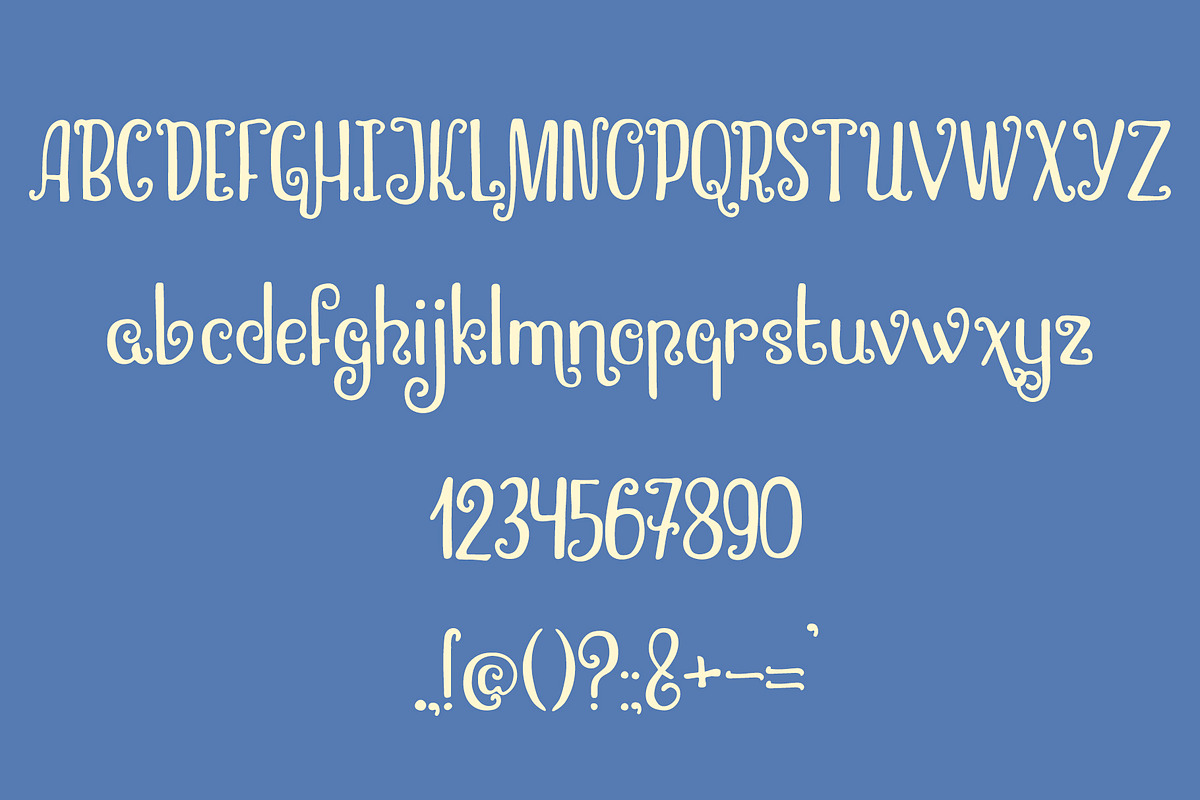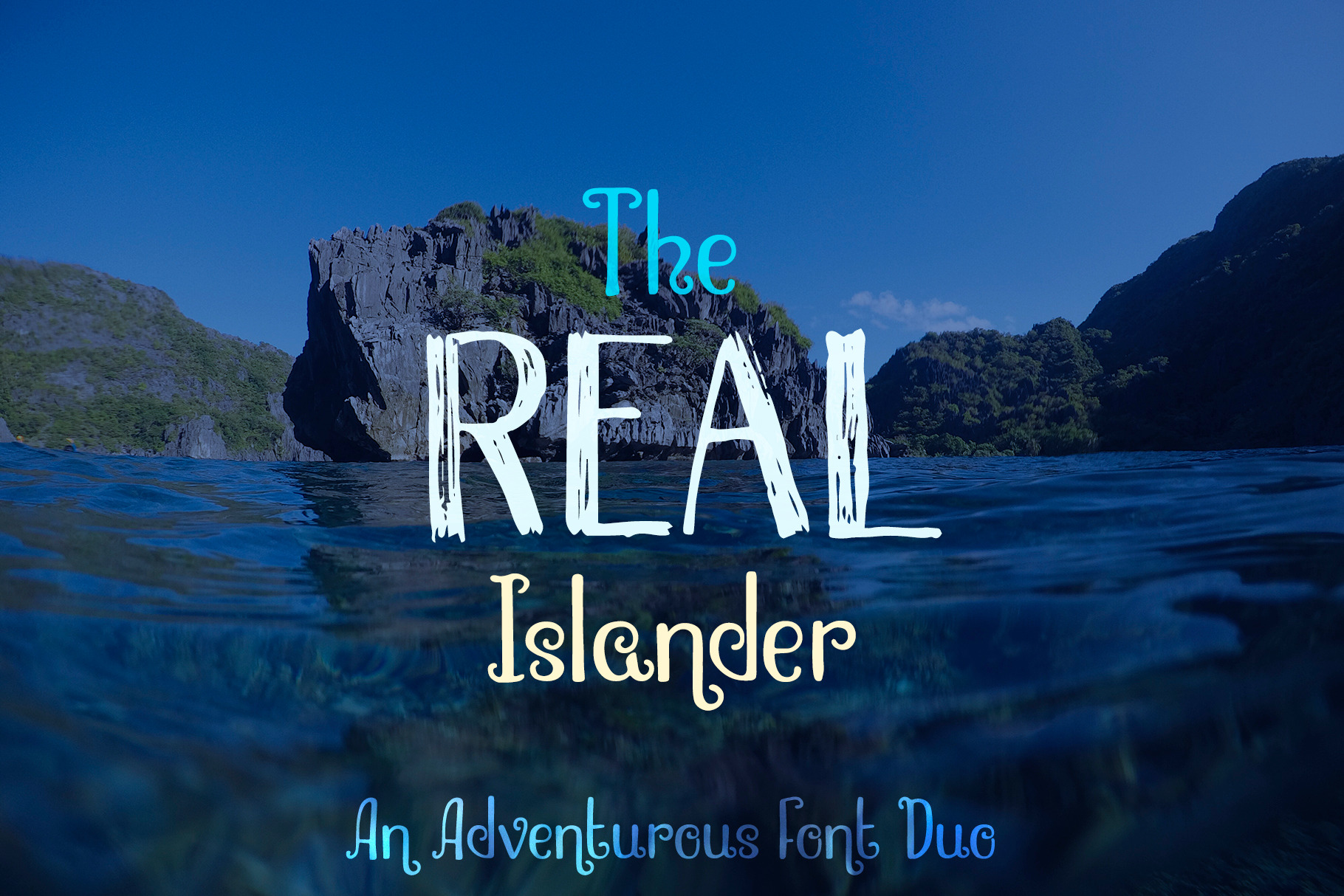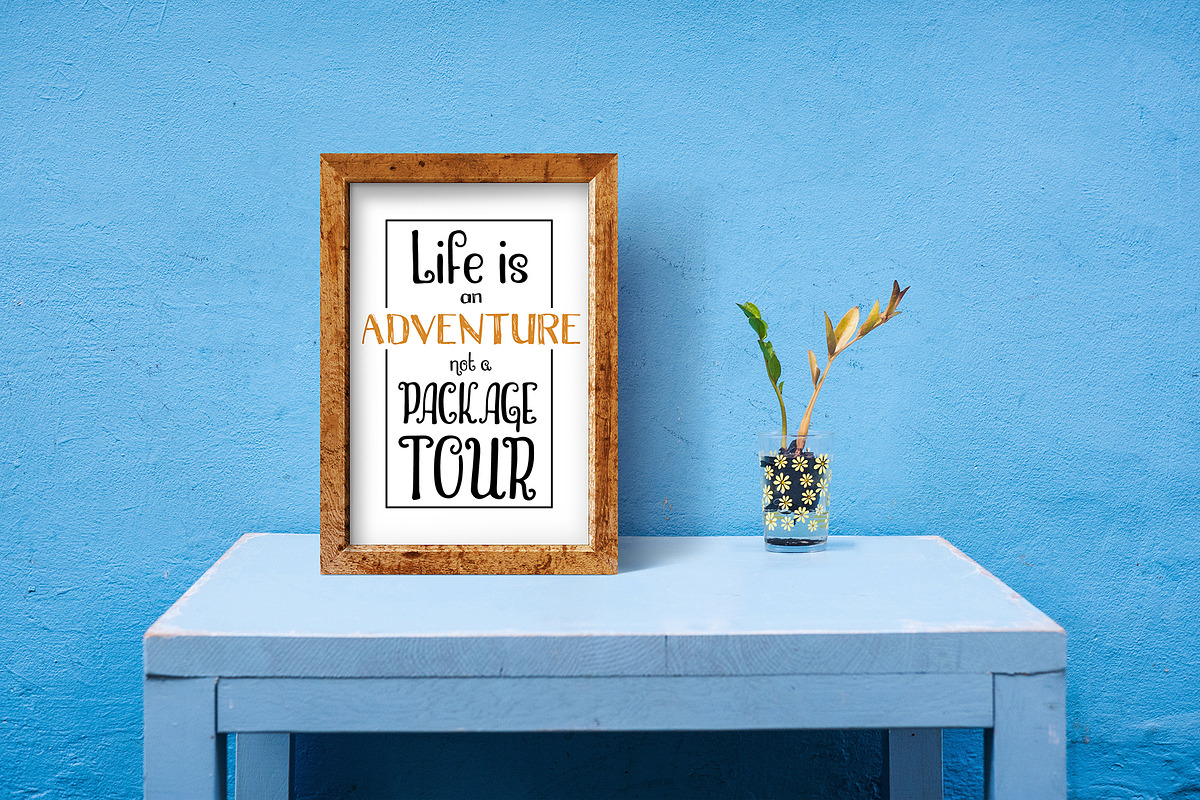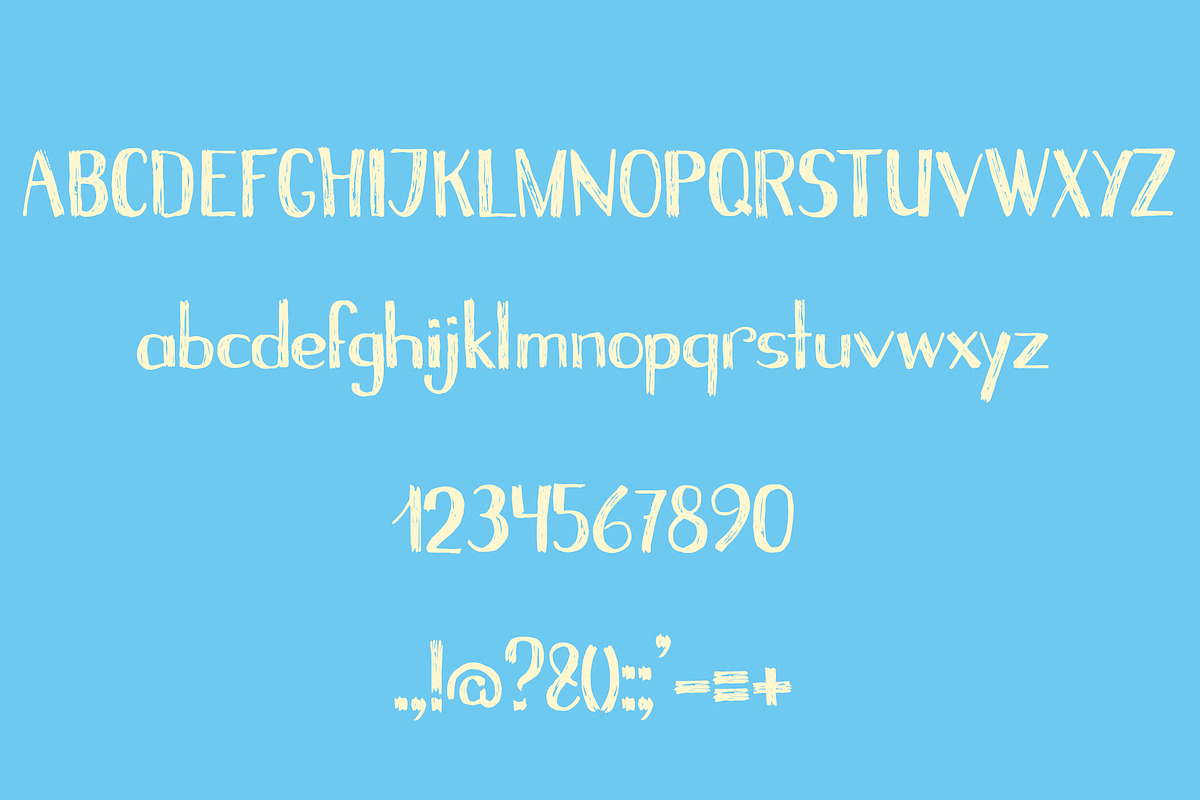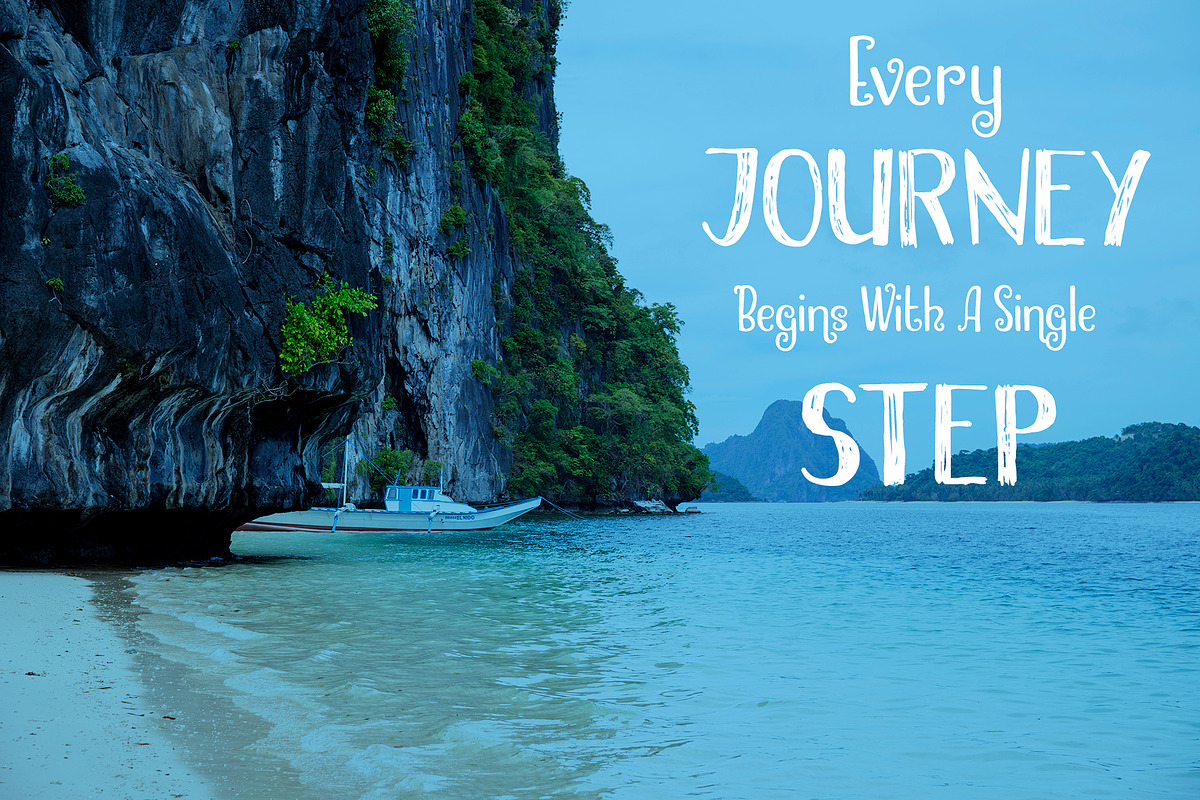
The Real Islander Font Duo
The Real Islander - a playful and expressive font duo for all who wander! It has something from vintage typefaces, something from grungy handwriting, and a little bit of Harry Potter feeling! And, of course, it's 100% handdrawn with accurate & textured trace - to bring the soul for your magic project!
The product file contains 2 fonts with uppercase and lowercase letters, numbers, punctuation signs. Moreover, The Islander Whimsical has some ligatures - just in case you have a very odd spell :)